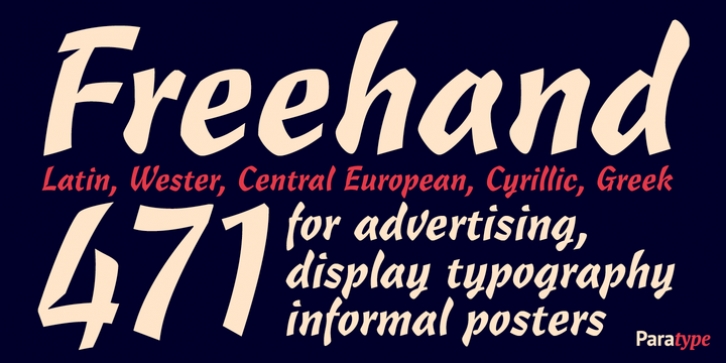
Freehand 471 was designed by Oleg Karpinsky and published by ParaType. Freehand 471 contains 1 style.
Freehand 471 is the Bitstream version of Cascade Script by Matthew Carter. Released by Mergenthaler Linotype in 1965, this design is based on an earlier type by the Ludlow foundry.
It's a dark, disconnected script with angular forms. It seems written by heavy marker and thus suitable for informal posters and signage and for advertising and display typography as well. Central European, Cyrillic, and Greek Monotonic characters were designed by Oleg Karpinsky. Released by ParaType in 2011.